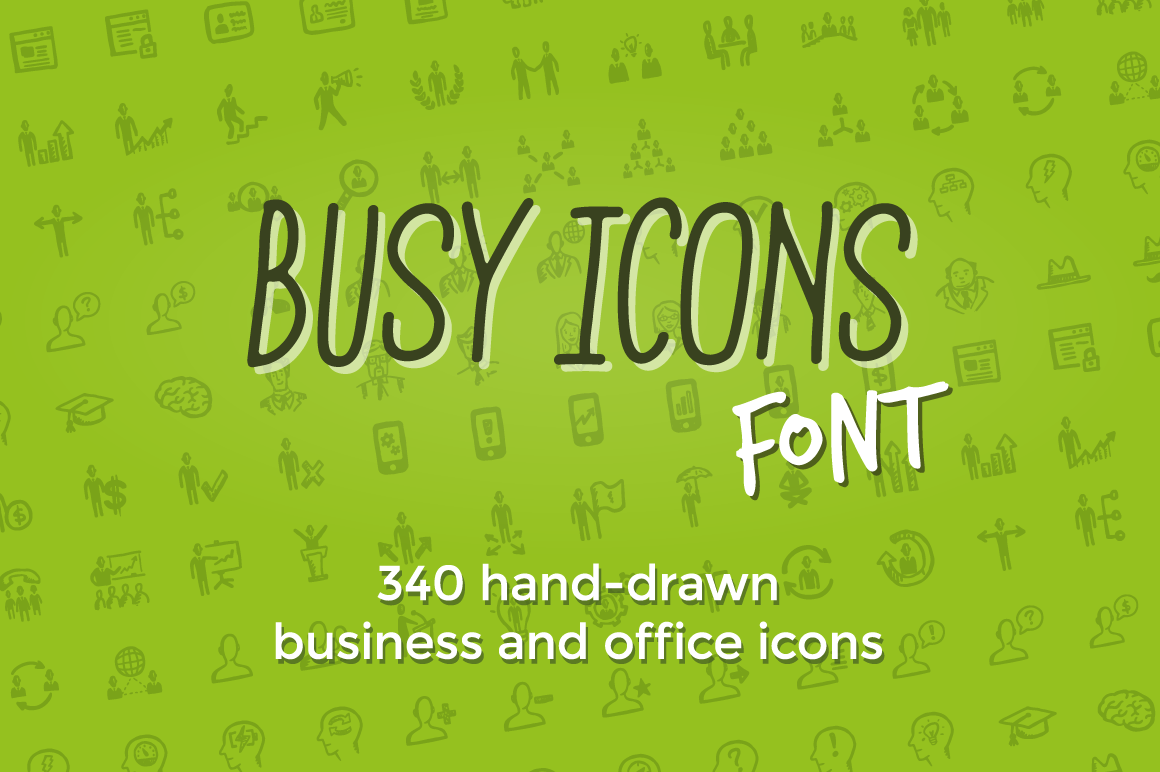
Busy Icons Font
Business icons font includes 340 hand-drawn icons featured in the original Busy Icons set by Hand-Drawn Goods.
Icon font allows seamlessly add icons to web layouts and style each icon with CSS, saving time from generating sprites or editing the images.
Busy Icons Font includes characters from the following categories: business, management, HR, investments, startups, marketing, time management and productivity, strategy, e-commerce and interface elements.